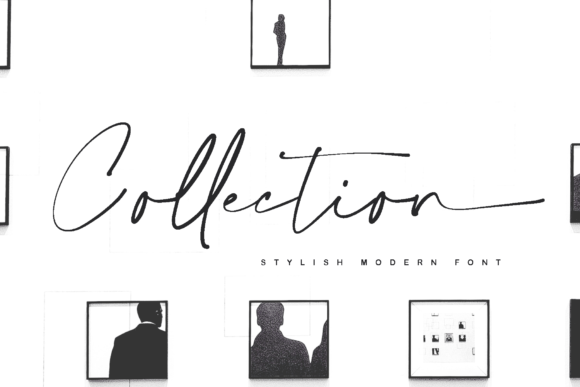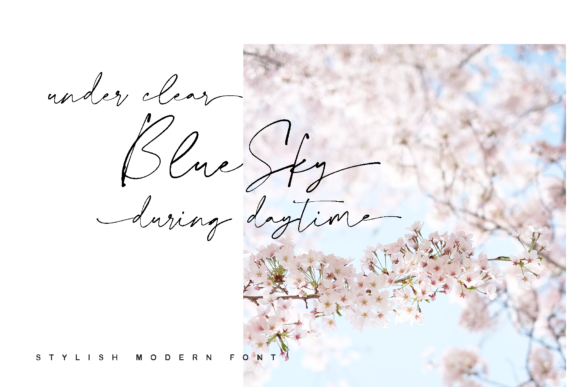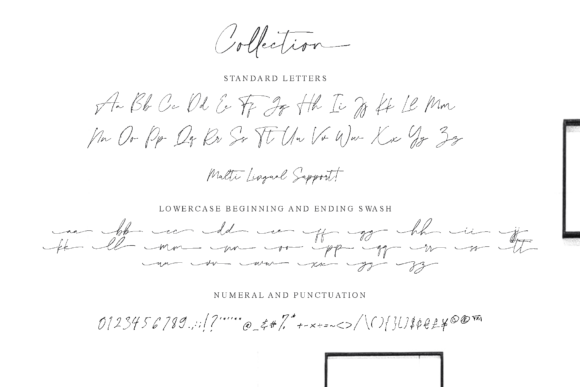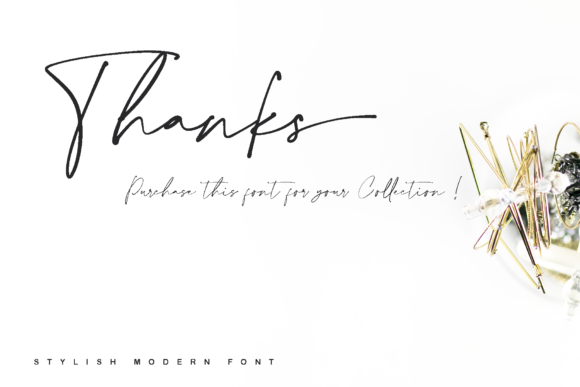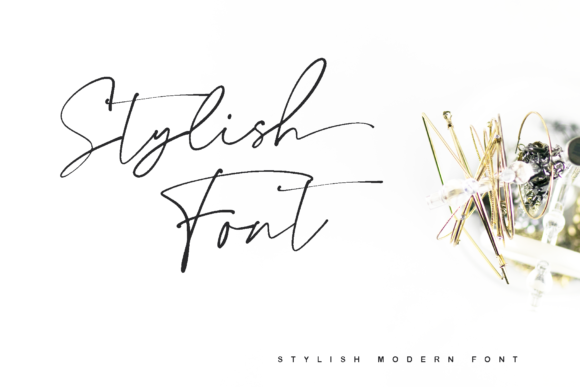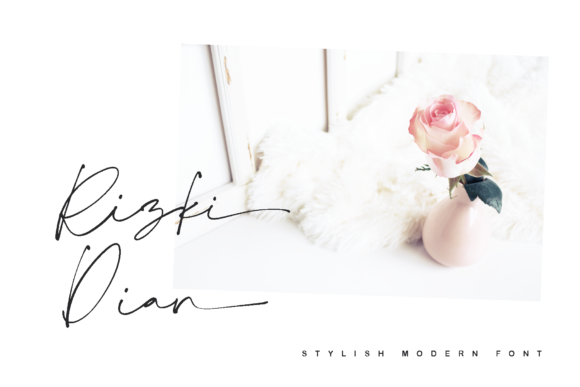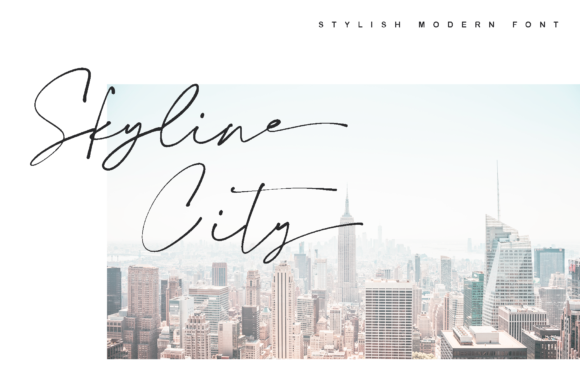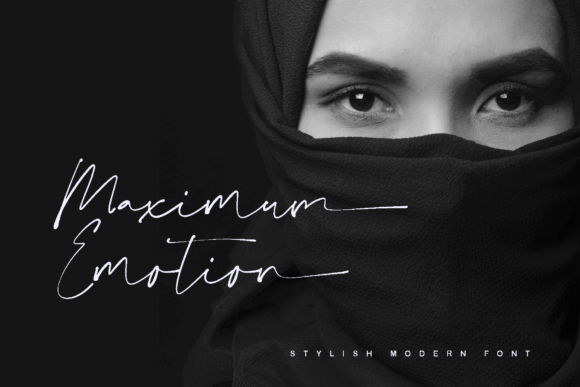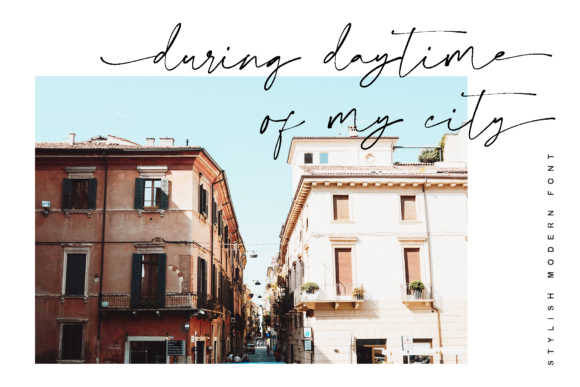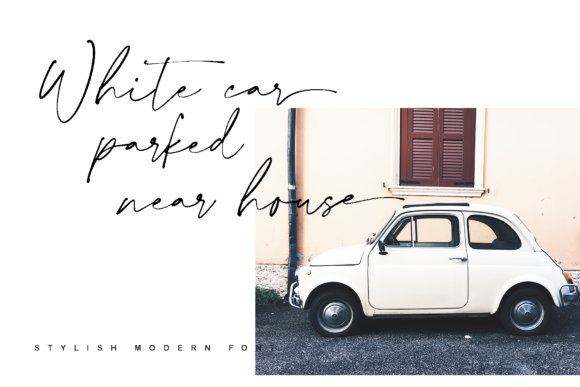
Collection Font
About Collection Font
Collection is a smooth and light handwritten font with a contemporary vibe. Use it to turn any design project into a true standout!